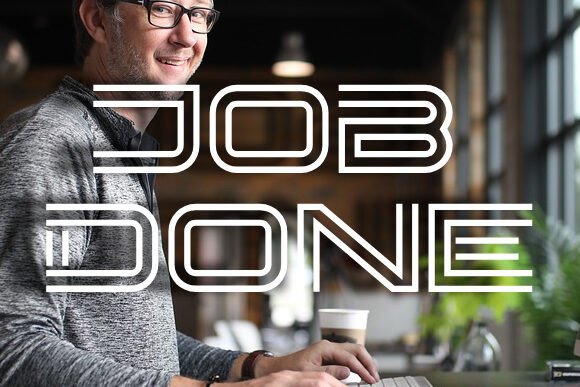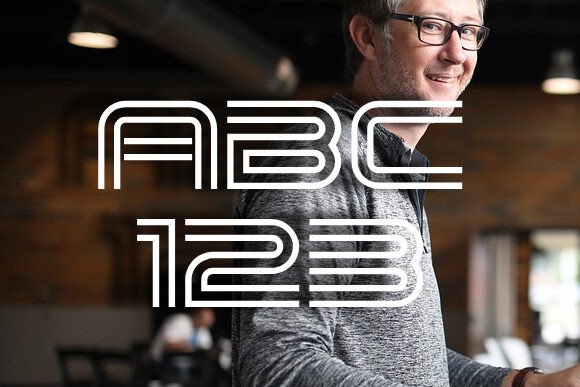
Introduction to Enterpriser Font
Have you ever been stuck in front of your computer, staring at a blank canvas, trying to bring your creative project to life? That’s exactly where I was when I stumbled upon the Enterpriser Font – a game-changer for designers looking to elevate their designs.
With its sleek and modern aesthetic, the Enterpriser Font is perfect for creating eye-catching posters, flyers, and even t-shirts that will make your designs stand out from the crowd. Whether you’re working on a free download or a paid project, this high-quality font is sure to make your work shine.
As a valuable design resource, the Enterpriser Font offers a transparent background that allows you to easily combine it with other elements, giving you endless possibilities for creative expression. In this article, we’ll dive into the world of this stylish techno font and explore why it’s a must-have for designers looking to take their work to the next level.
Key Features of Enterpriser Font
- High-quality typography for creative projects: Enterpriser Font is designed to elevate your design with its modern and sleek style, making it perfect for any creative project.
- Unique characteristics: Enterpriser Font features a unique blend of modern and classic elements, making it stand out from other fonts in its category.
Honest Review: Enterpriser Font
As a designer, I’m always on the lookout for high-quality design resources to elevate my creative projects. Recently, I came across the Enterpriser Font, and I must say it’s a great addition to my toolkit. The font is available for free download, making it an excellent resource for designers on a budget.
One of the standout features of the Enterpriser Font is its versatility. It’s perfect for creating modern and sleek designs, thanks to its clean and minimalist aesthetic. I also appreciate the transparent background option, which allows for seamless integration with various design elements.
Here are some of the things that work well with the Enterpriser Font:
- ✨ High-quality design that’s perfect for modern and sleek designs
- ✨ Versatile font that’s suitable for various creative projects
- ⚠️ Limited font styles available (only a few weights and styles to choose from)
- ⚠️ May not be suitable for complex or intricate designs
Overall, I’m impressed with the Enterpriser Font. While it may have some limitations, its high quality and versatility make it a valuable resource for designers. I’ll definitely be using it for my future projects.
The Enterpriser Font is perfect for any project that requires a modern, professional look. Use it for business cards, resumes, presentations, and more.